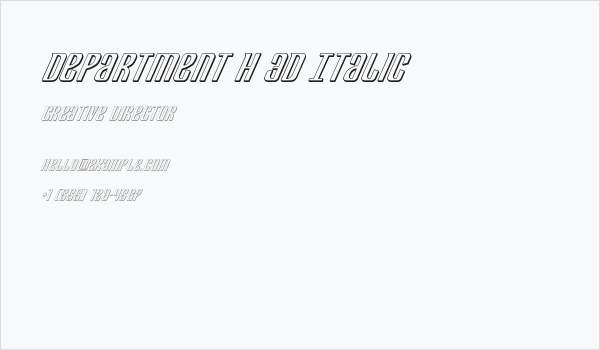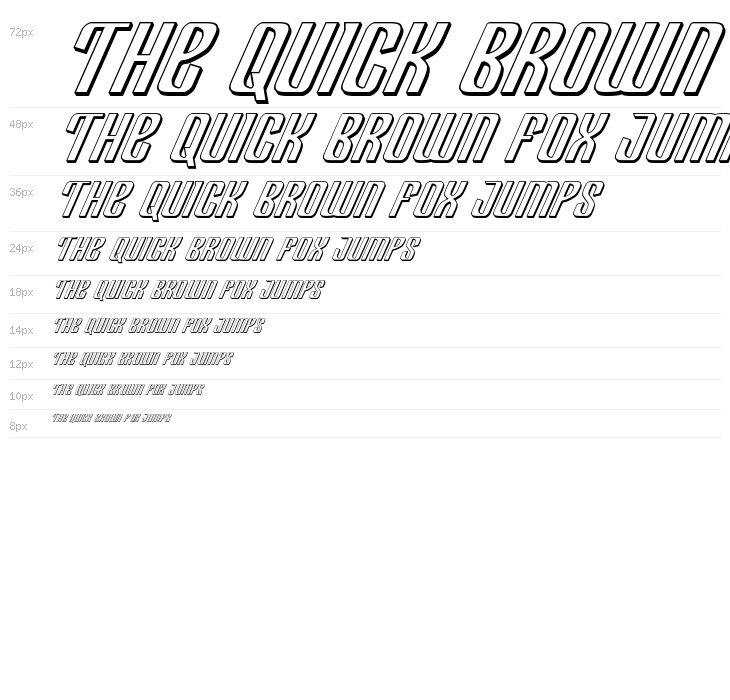
Department H 3D Italic Font
Department H 3D Italic Description
This font features a bold and dynamic 3D italic style, characterized by its strong geometric shapes and a sense of depth created through shadowing. The uppercase and lowercase letters maintain a consistent slant, enhancing the italicized effect. The numerals and special characters follow the same stylistic approach, ensuring uniformity across all glyphs. The font's design is modern and eye-catching, making it suitable for projects that require a bold statement. Its unique 3D effect adds a layer of complexity, making it stand out in various design applications.
| Proposed Projects | Ideal for headlines, posters, branding, and any design needing a striking, modern typeface. |